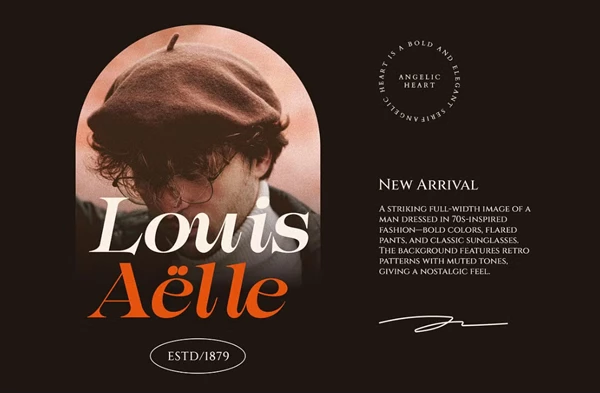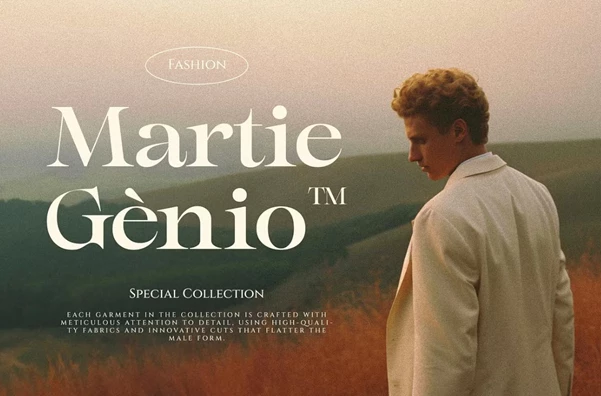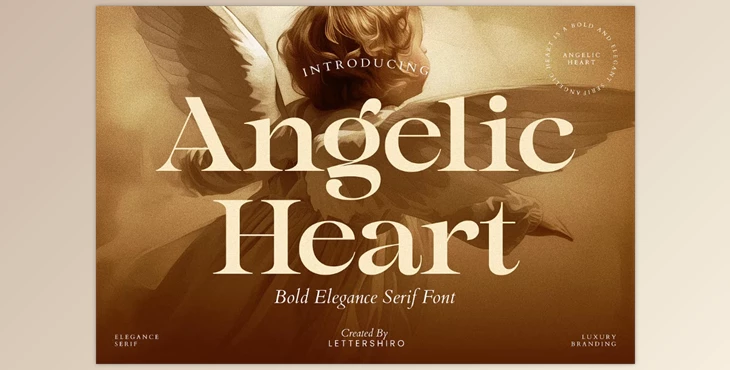
Angelic Heart Elegant Serif Font:
Angelic Heart is a beautiful serif font with modern and timeless characteristics that make it the perfect match for any project that requires relined letters and more contemporary proportions. This bold yet delicate font is one of the top choices for luxury lettering creations and unique type applications. Use for your brand logo, magazine titles, and even invitations to ceremonies for a polished, effortless, seamless look.
Angelic Heart is Regular and Italic; no more is needed to create a professionally appropriate and personally appealing spin on this font. It'll work anywhere you put it, adding romance, drama, and a beautiful weight to any design, suiting any creative looking for a good quality final product.
Some great features of Angelic Heart Elegant Serif Font:
- Elegant, Modern Look: Refined serifs create a legible yet stylistic presence.
- Two Styles Included: Regular and Italic, offered for dynamic use and versatility.
- Complete Character Set: Includes uppercase, lowercase, numbers, punctuation, and symbols.
- OpenType Features: Provides alternates and ligatures.
- Multilingual Support: Western European languages supported.
"Angelic Heart Elegant Serif Font" Samples: